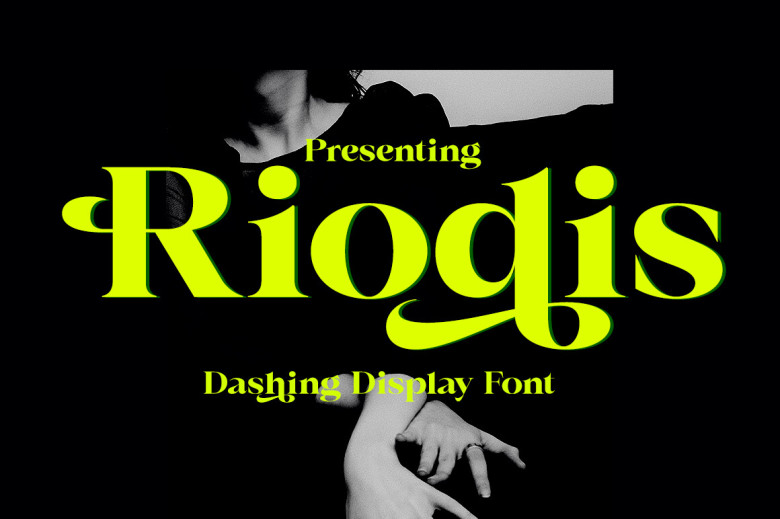
Riodis is an elegant show serif typeface with a sophisticated and contemporary elegance appearance, which was designed specifically to be used in luxury-related projects such as branding, magazines, social media branding, logos, brand names and website headers or text overlay over background photos.
Riodis comes equipped with an entire set of characters such as Swash, The Binding Point and Discretionary Connections for uppercase and lowercase alphabets as well as multilingual symbols, number and punctuation marks for creating elegant fonts and documents.
Riodis Serif Font